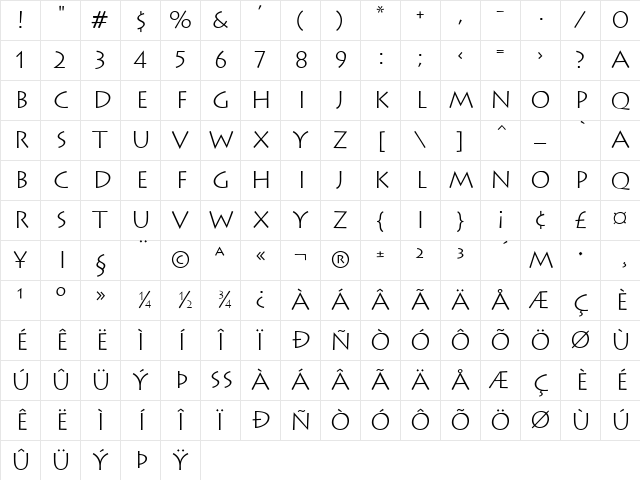
LithographLight Regular
LithographLight Family
LithographLight Regular
Design Context for LithographLight
LithographLight is a composed and adaptable typeface that performs quietly and consistently across a wide range of design contexts. Its slender proportions lend an understated elegance to any composition.